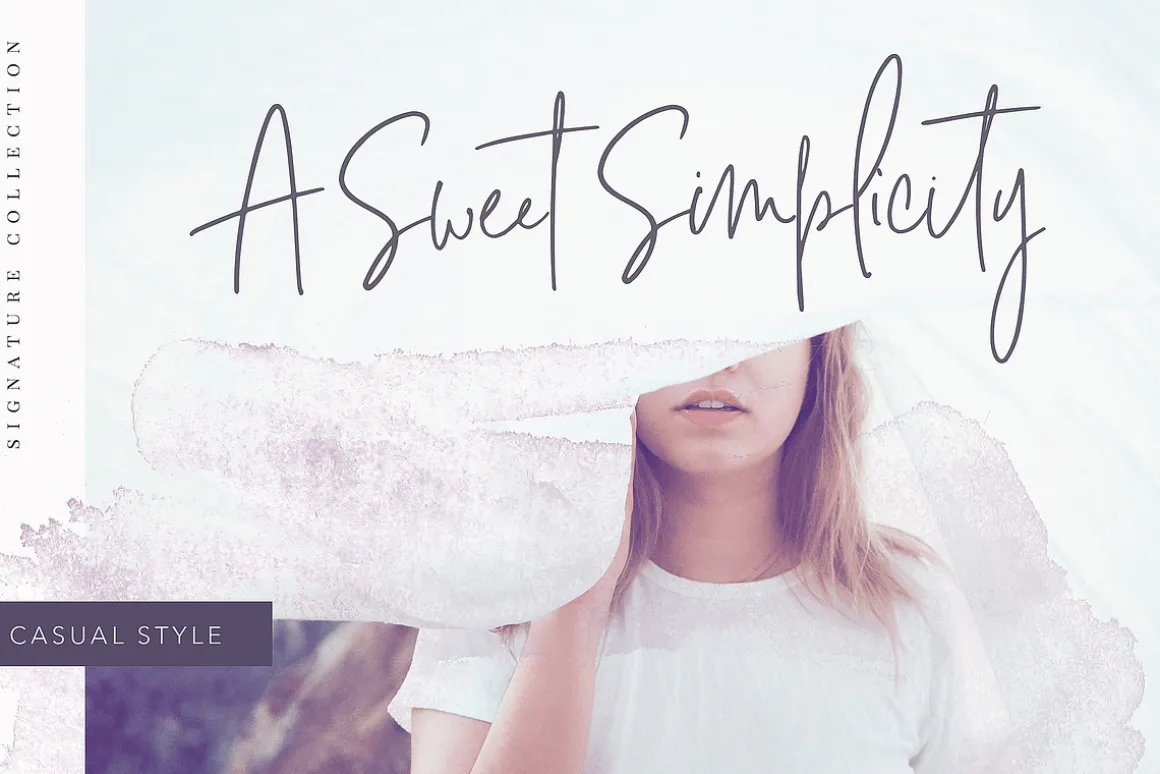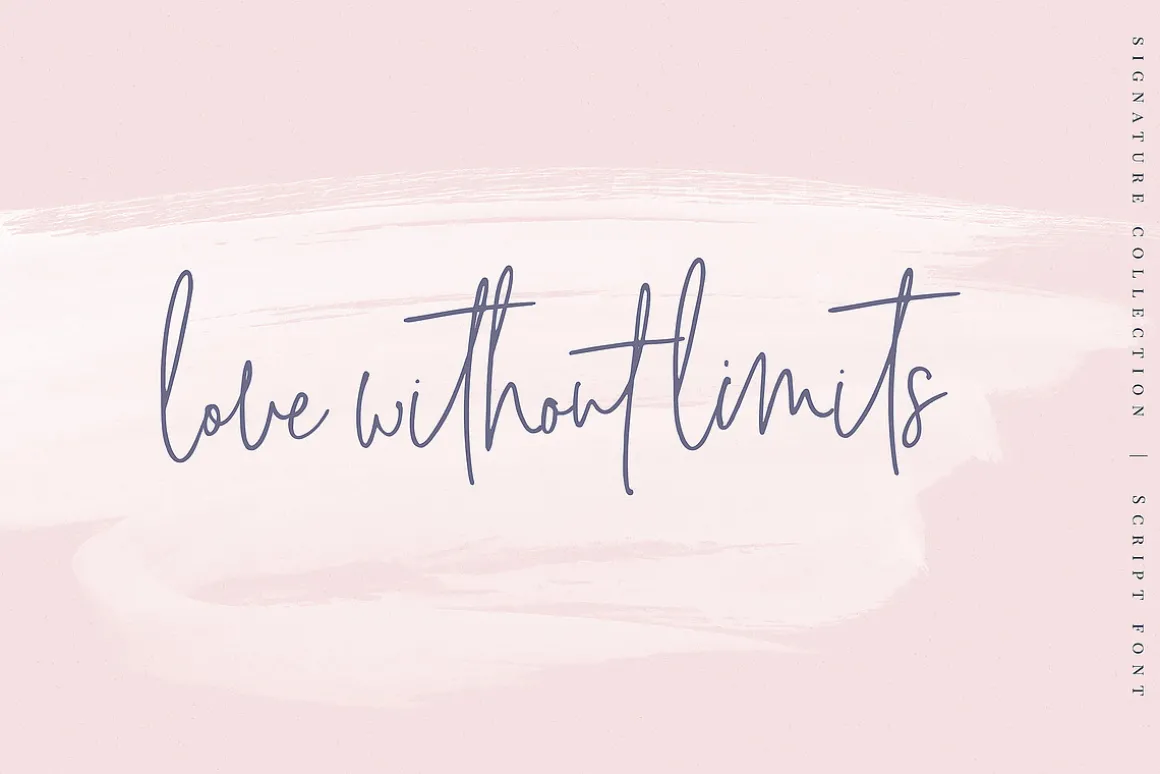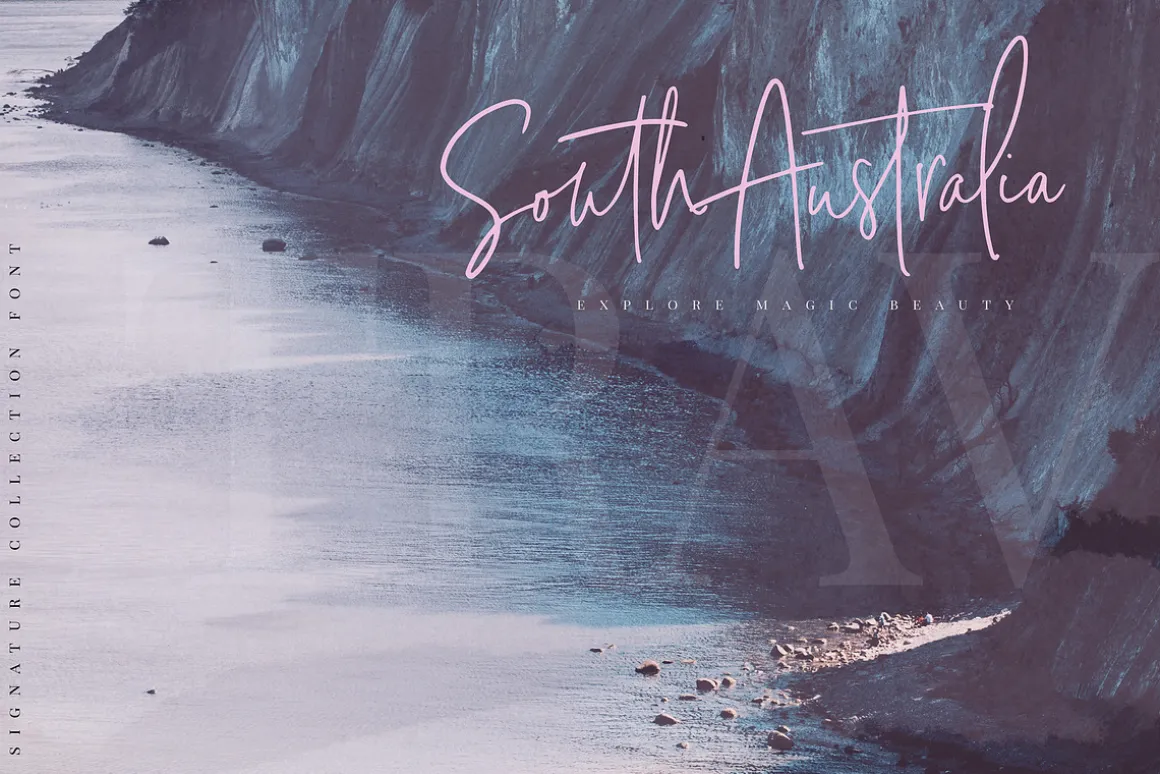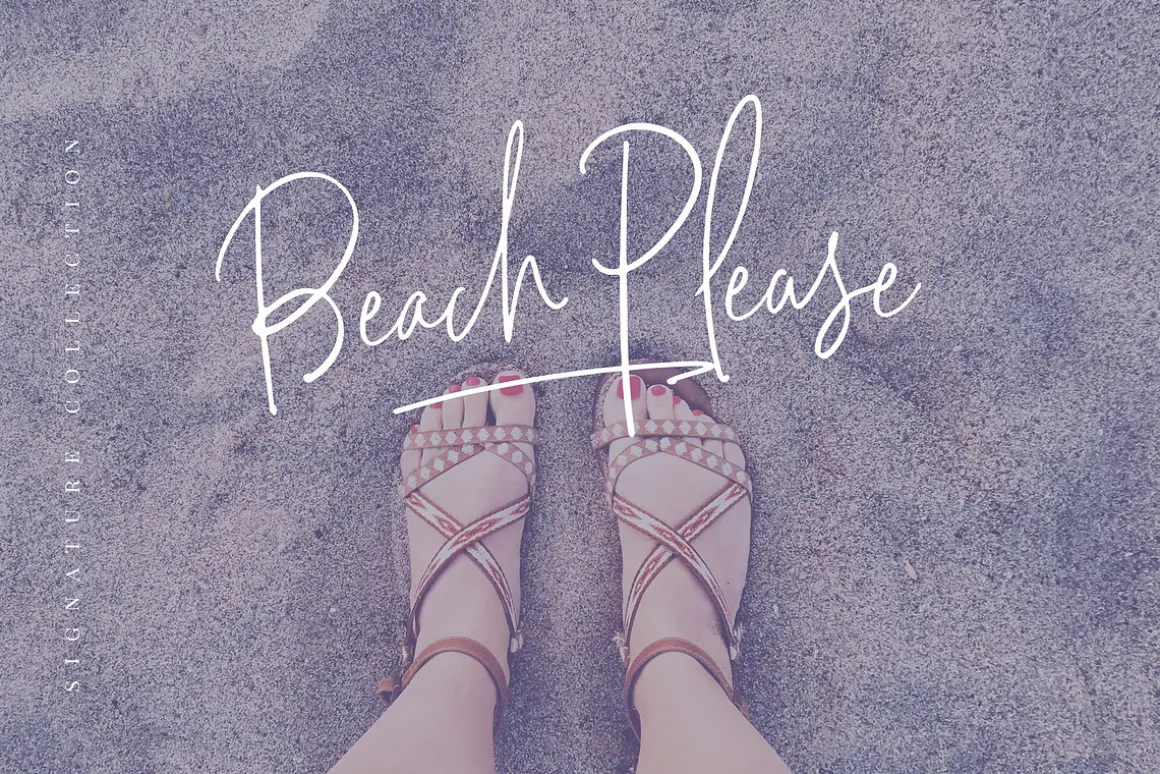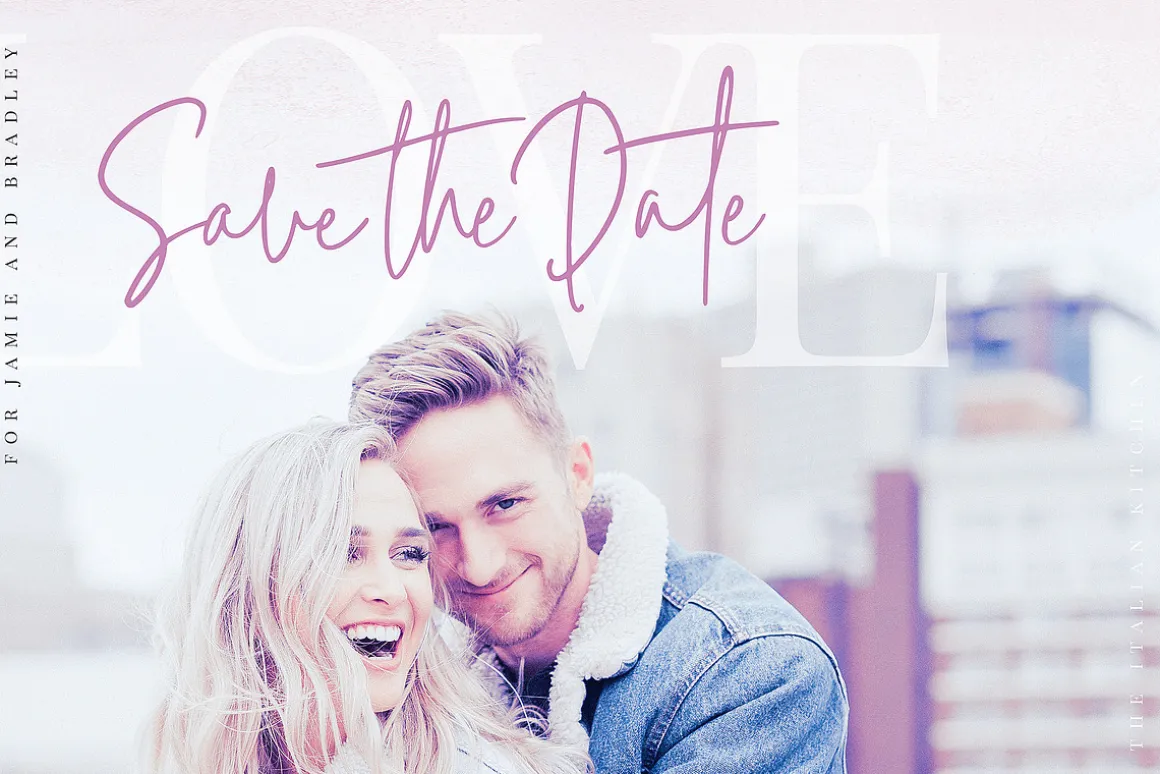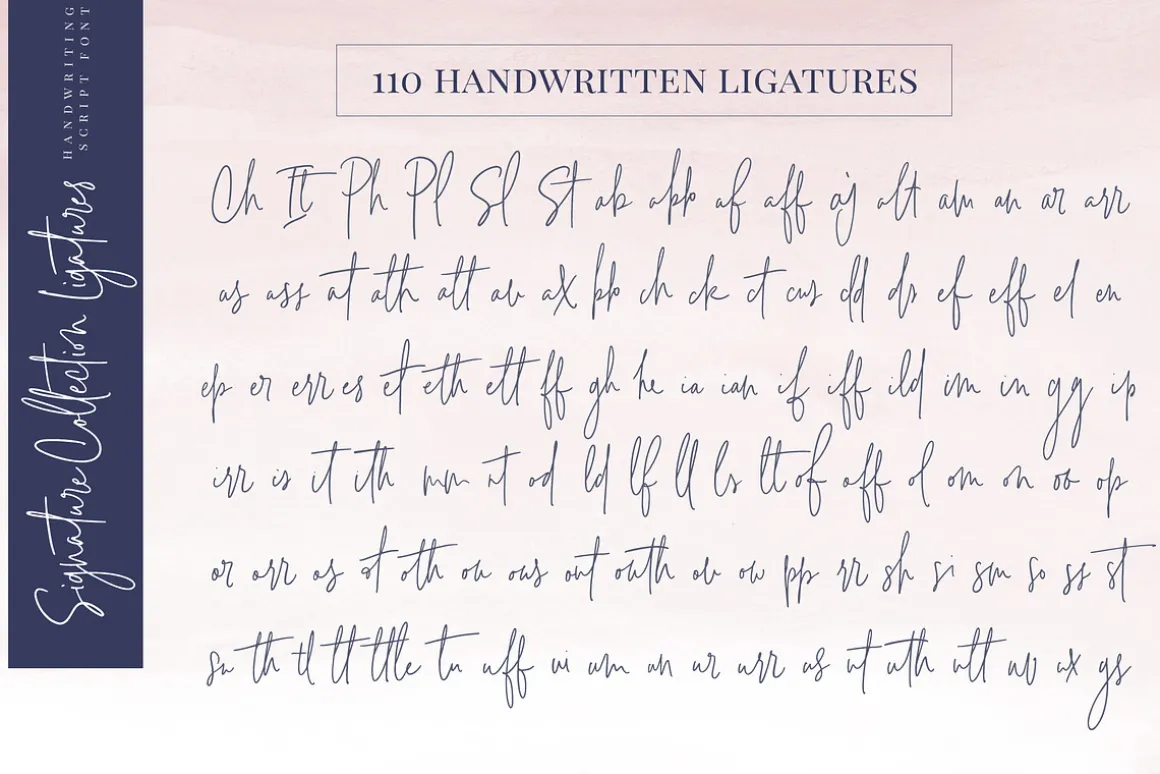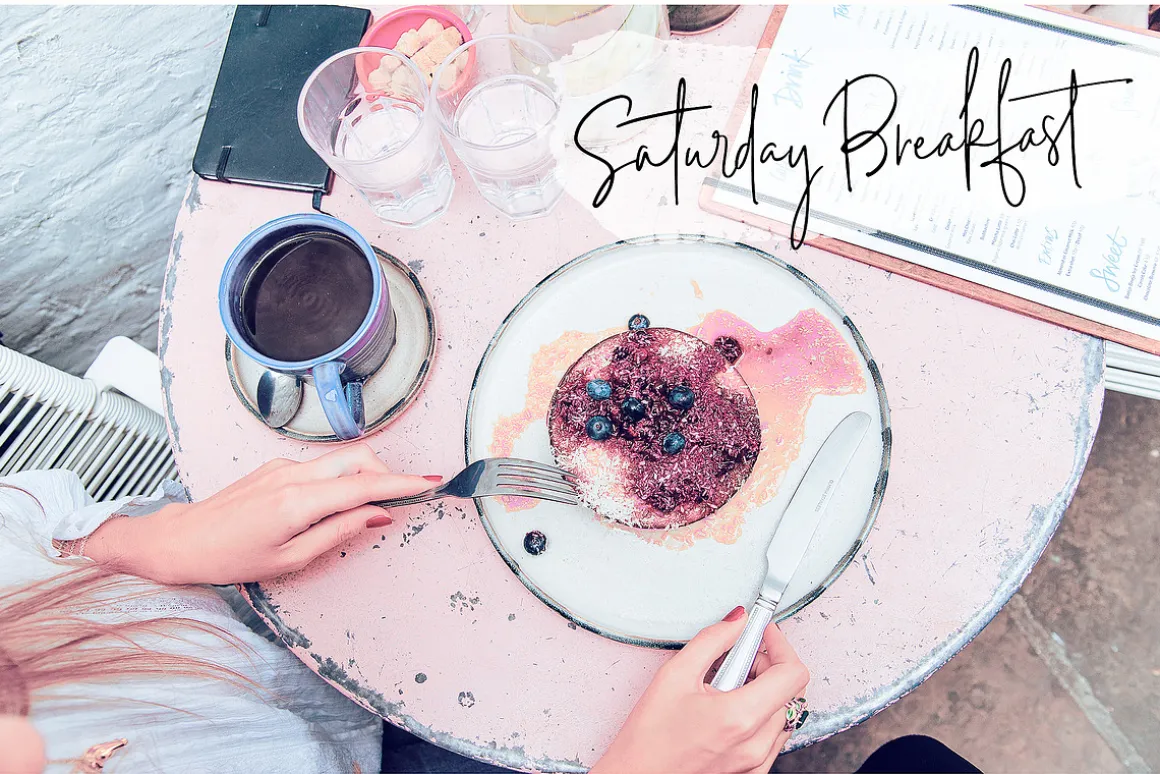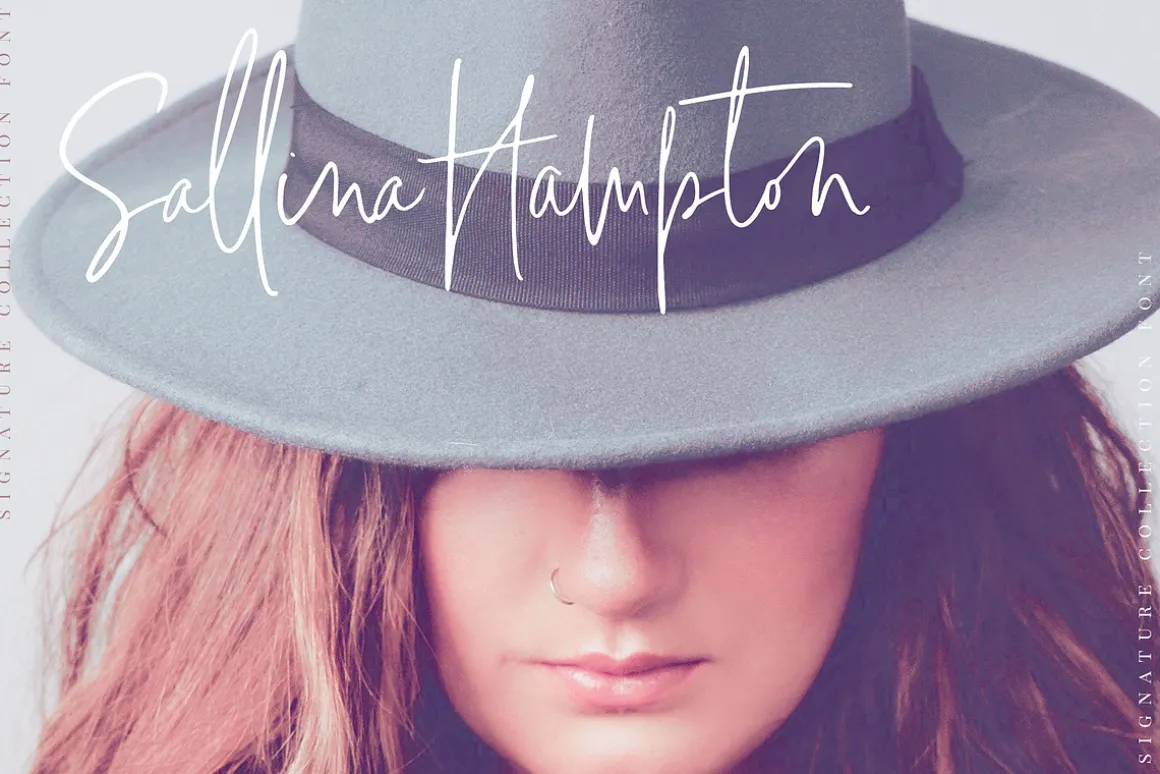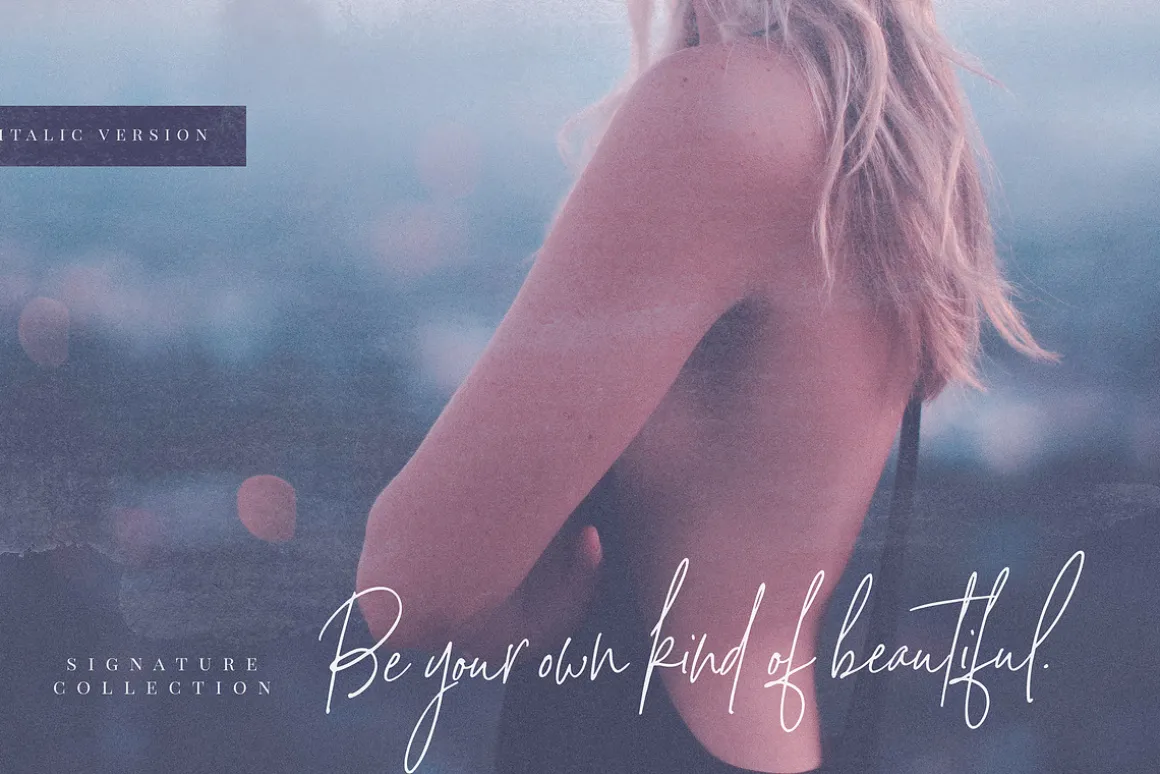
Introducing the new ‘Signature Collection’ script font -A fashionable and super-chilled new handwriting font script with some sexy stylish extras:)
Signature Collection font was created to look as close to a natural handwritten script as possible by including over 100 ligatures, and a full set of lowercase alternates.
With built in Opentype features, this script comes to life as if you are writing it yourself.
THE SEXY EXTRAS – 30 Subtle Watercolour Overlays.